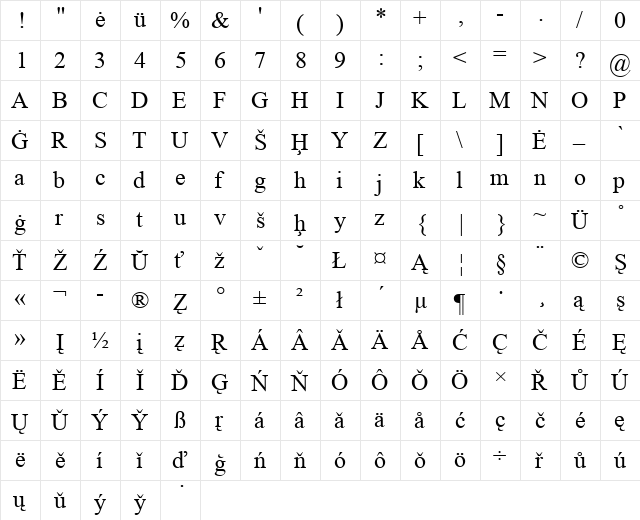
Solca Regular Font Preview
Solca Regular
Solca Regular Font Details
Design Context for Solca Typeface
Solca offers clean, dependable letterforms without strong stylistic allegiance, making it a practical choice for designers who need flexibility.